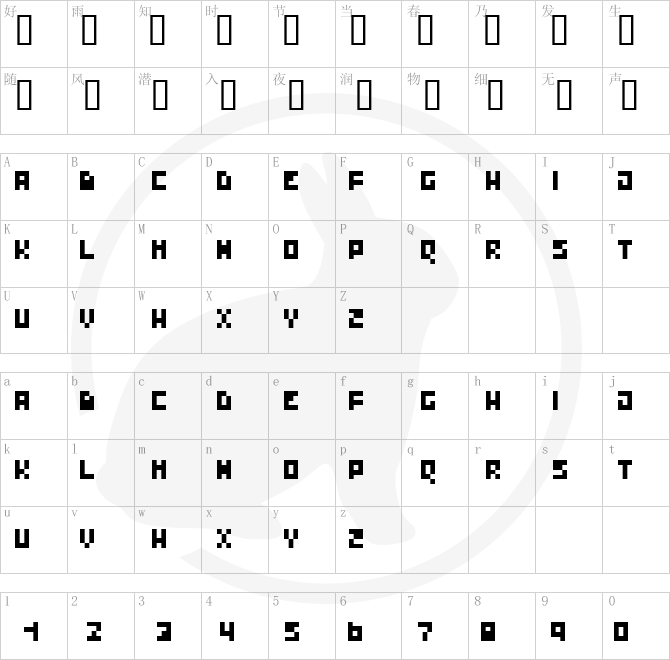
- Font Name:H7Macro
H7Macro-Normal.ttf is a very beautiful artistic font, H7Macro-Normal.ttf is widely used in the design and printing of various books and pictures,H7Macro-Normal.ttf has a strong visual impact,H7Macro-Normal.ttf is a commonly used font in newspapers, magazines and books, and is used in posters, e-commerce Poster design, store design, logo design, font design and other fields.H7Macro-Normal.